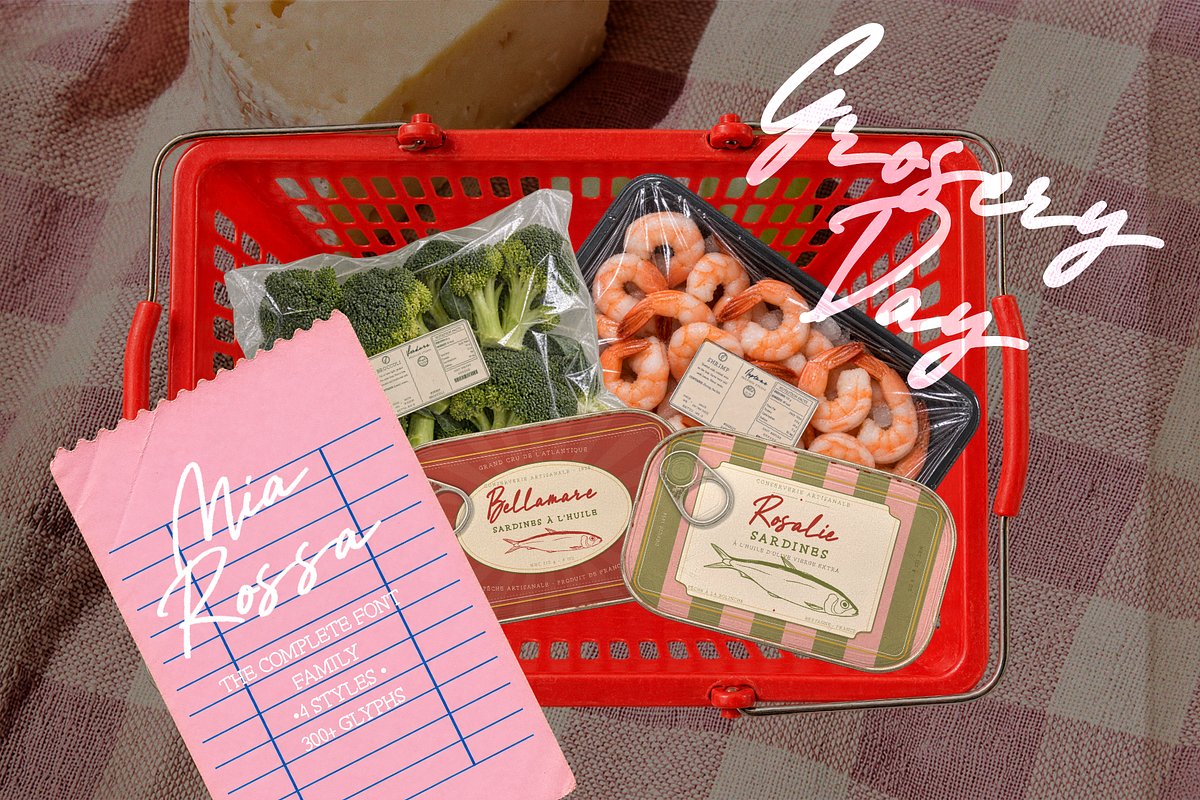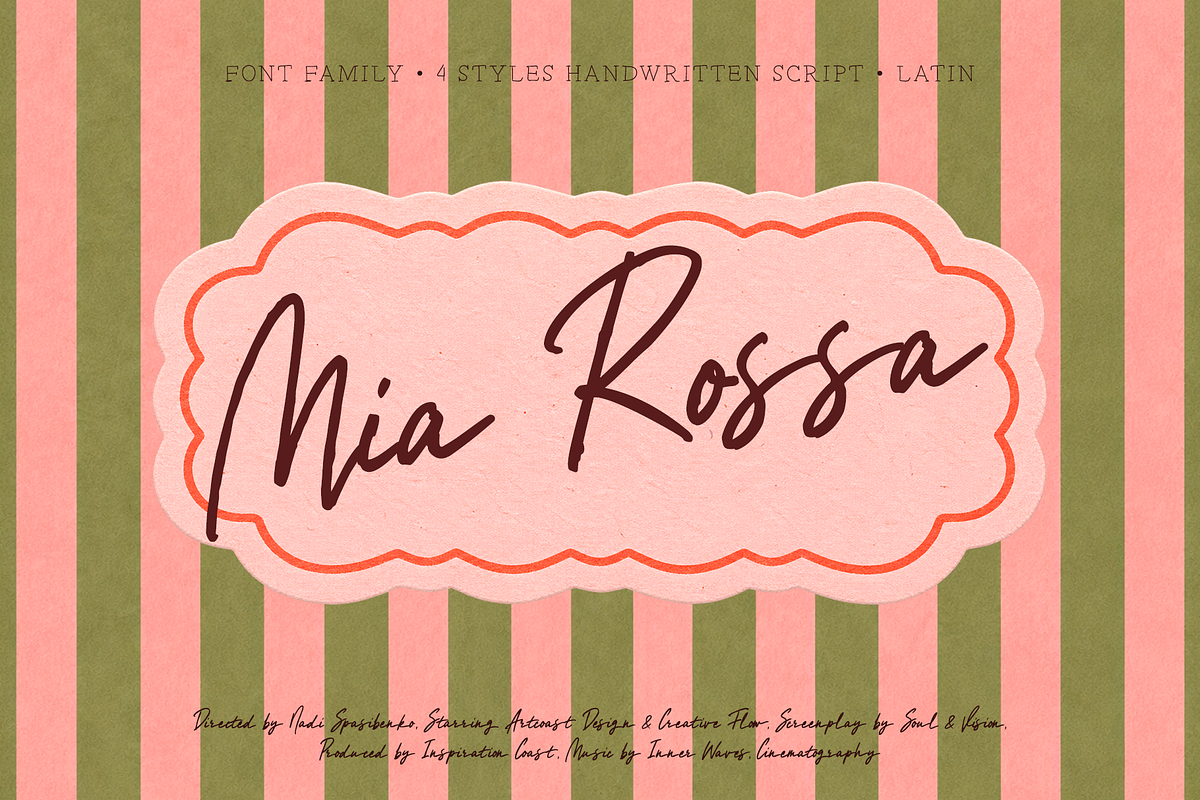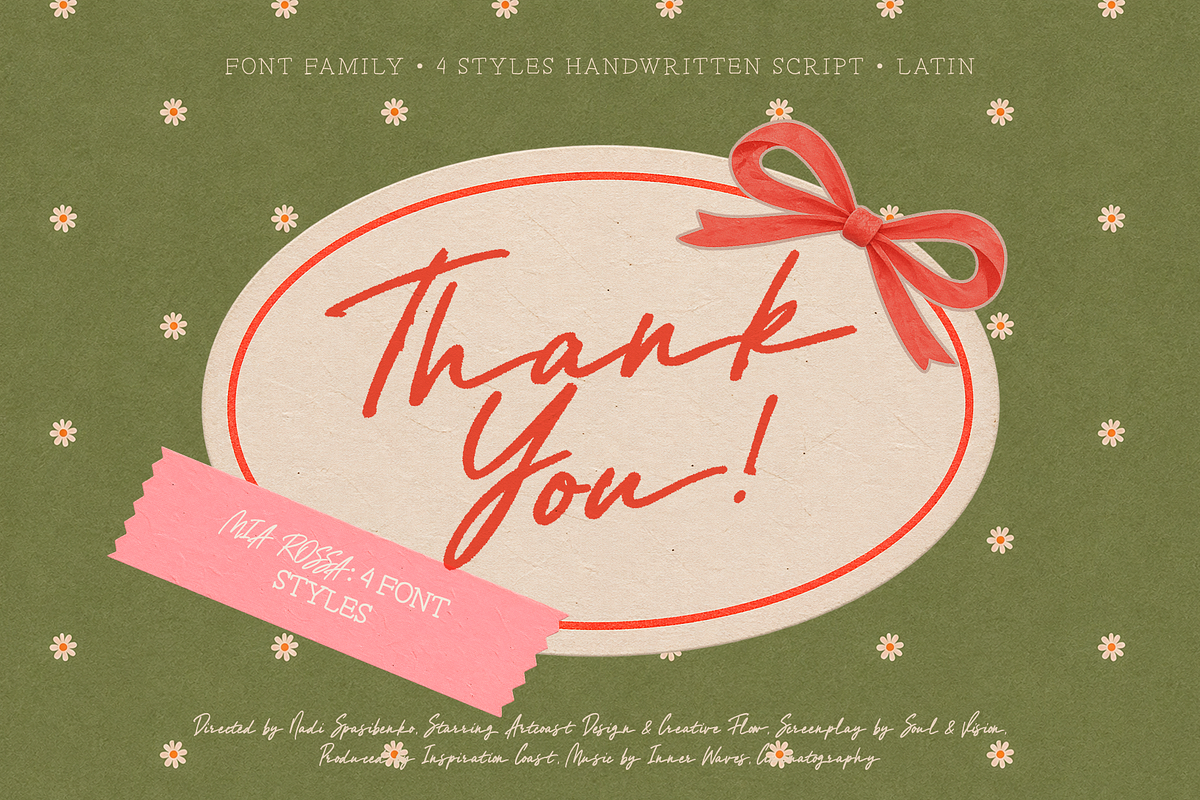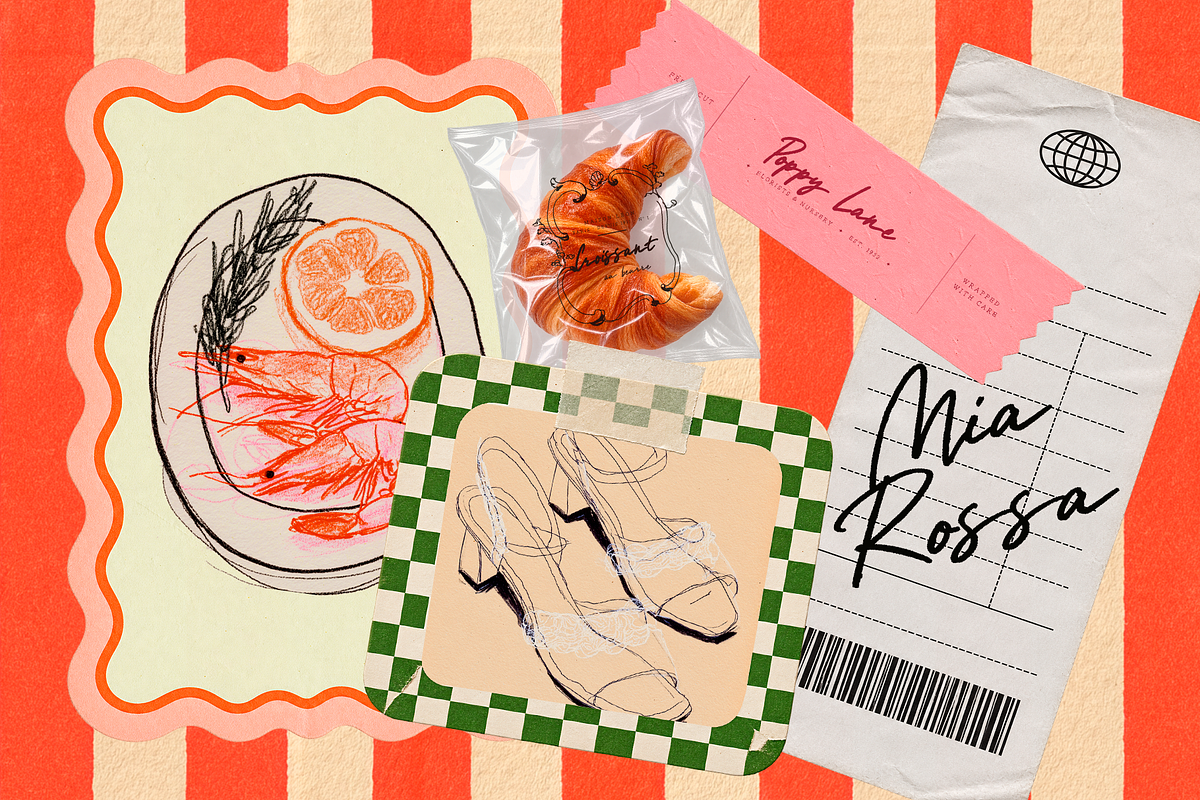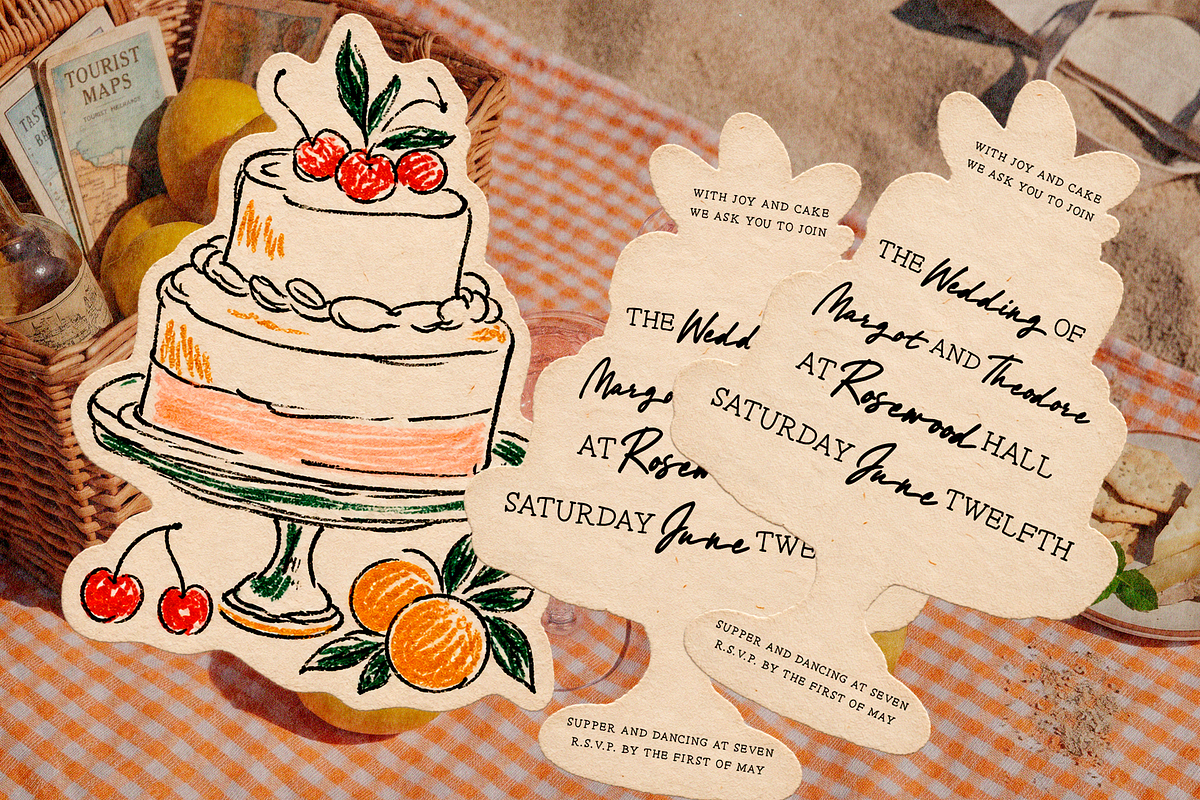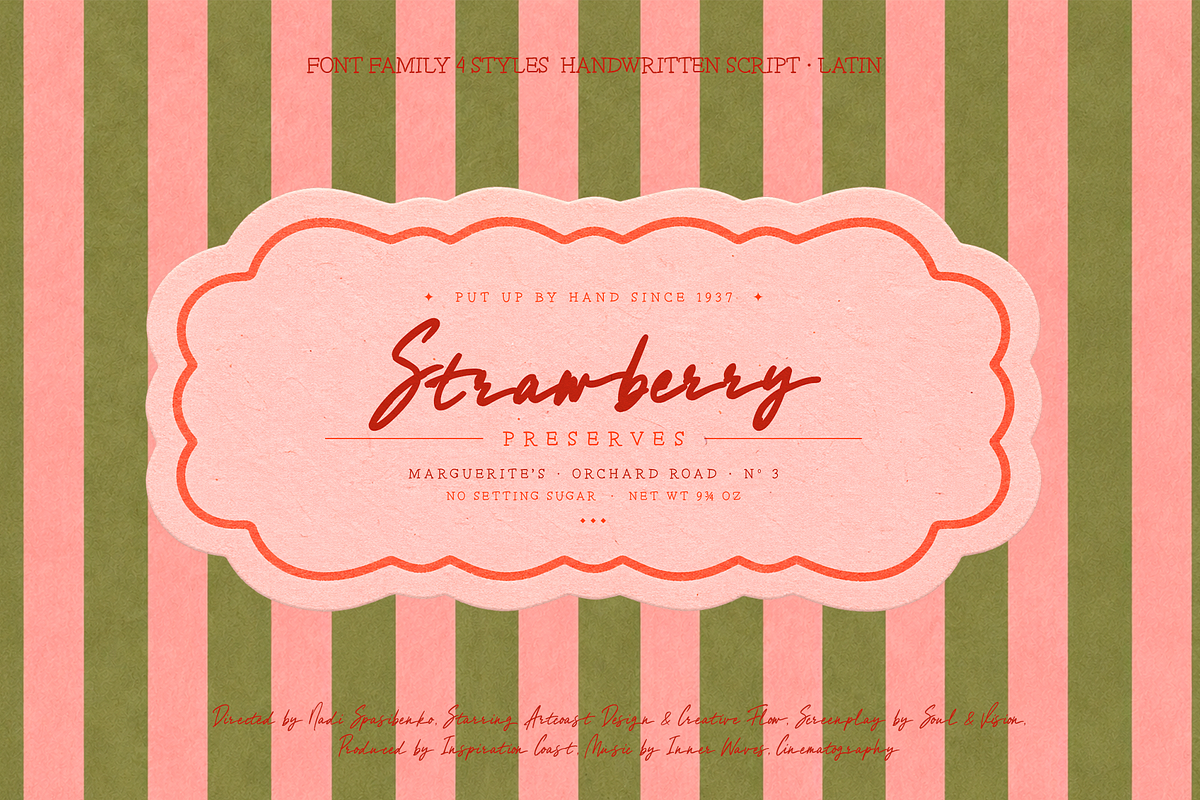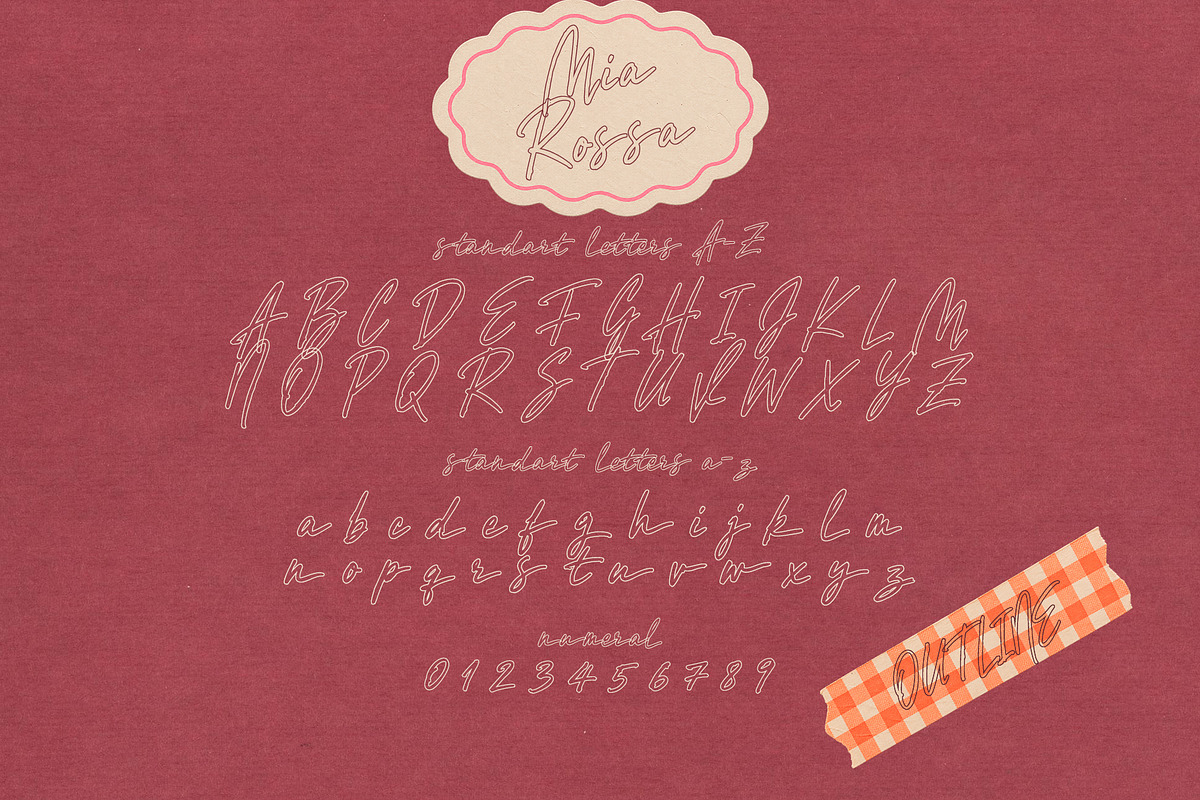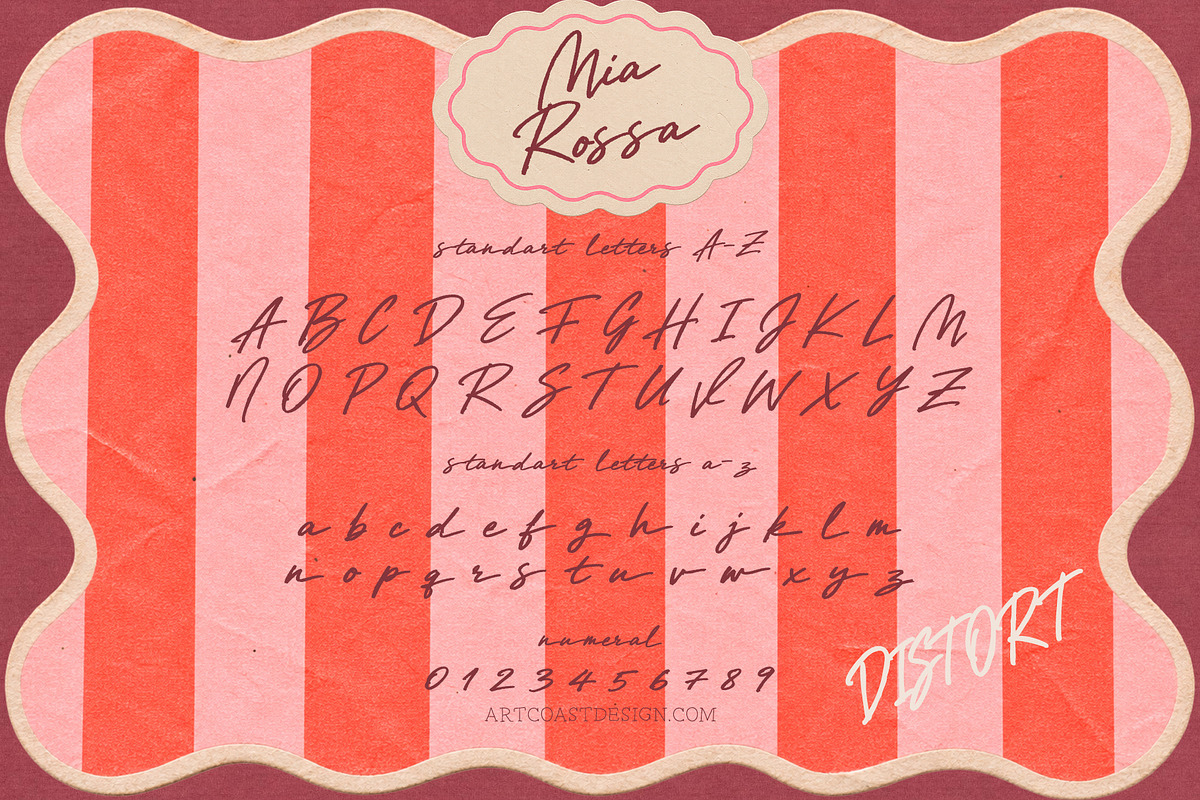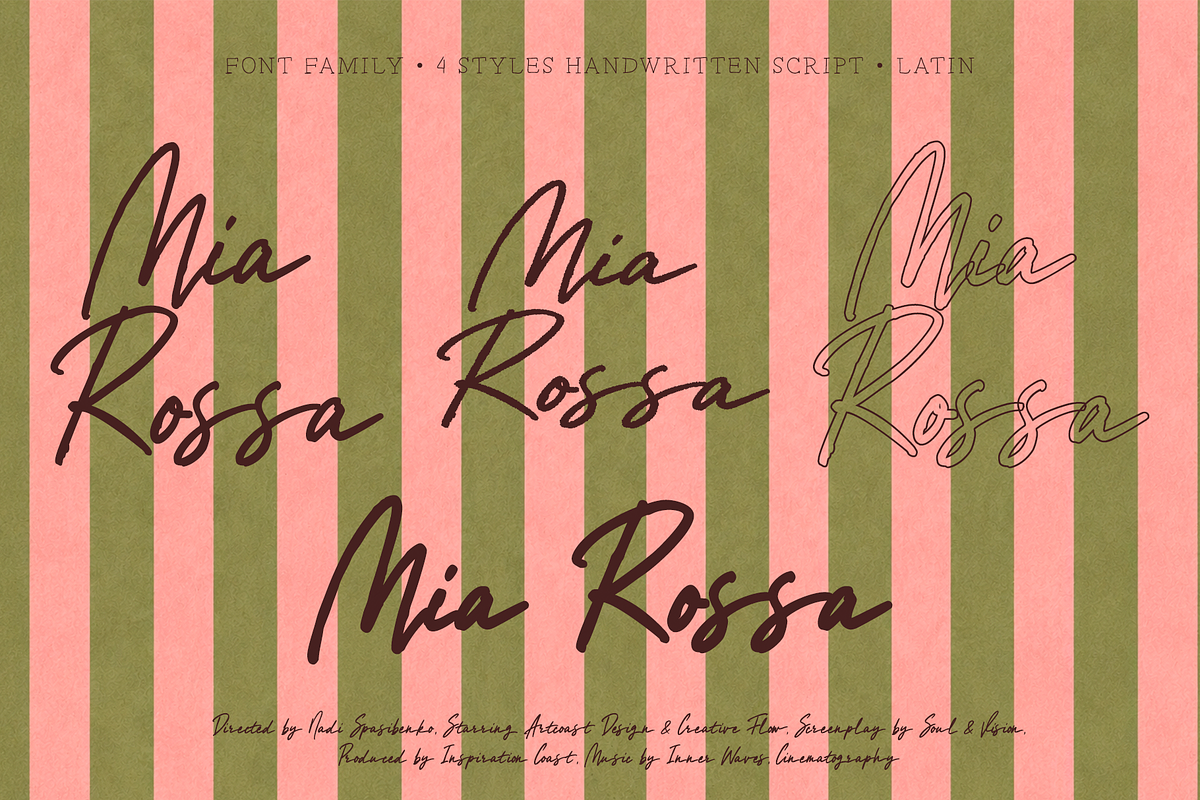
Mia Rossa - Handwritten Font Family
Mia Rossa is an expressive handwritten script font family with a romantic, vintage-inspired character and an authentic hand-lettered feel. Designed to bring personality, warmth and a little imperfect charm to your creative projects.
The family includes 4 complementary styles, giving you the flexibility to create everything from elegant feminine lettering to bold, expressive headlines and more distinctive layered compositions.
With an extended Latin character set, Mia Rossa is ready for a wide range of international branding and design projects.
Branding & logo design
Fashion and beauty brands
Wedding invitations & stationery
Packaging & labels
Boutique and lifestyle branding
Posters & editorial design
Greeting cards
Quotes & wall art
Product packaging
Book covers
Blog and website graphics
Creative advertising
Apparel & merchandise
Mia Rossa works beautifully for projects that need a personal, artistic and nostalgic touch. Mix the 4 styles to create contrast, custom lettering combinations and eye-catching typography.
• 4 font styles
• Extended Latin character set
• Handwritten script lettering
• Authentic hand-lettered appearance
• Uppercase & lowercase characters
• Numbers & punctuation
A versatile script family for designers, illustrators, small businesses and creatives who want their typography to feel handmade, expressive and memorable.